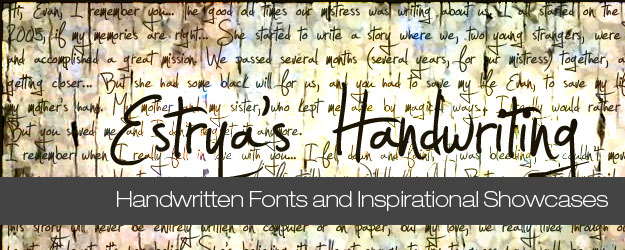
Should Handwritten Fonts be used in web design? For quite some time companies and governments have been working hard to make daily life things available as digital services in whatever way possible to speed processes up and cut costs.
At the same time most communication takes place on digital channels by sending emails, chatting, electronic orders, paying online, doing banking online…well almost anything goes on the line today.
Sending a good old snail mail letter is still possible but not that popular really. Even on vacations we are not offline and stick to digital channels, keep the blog updated with “near real time images and stories. Just ask yourself – when is the last time you send or received a postcard, a letter…?
This is because of we have netbooks and hand-held gadgets going with us anywhere and most hotels, restaurants, public places, people we visit etc. have internet (or if not we can just sneak online using bluetooth and our mobile phone if it is not already integrated into the netbook…).
The advantages that computers give us is obvious but the complete turnaround that have happened over just a few years makes real life stuff like fx. hand written text catch most peoples attention (even though it is presented on a computer screen).
Hand writing is something we all know very well and have been working hard to learn in school, it may bring up emotions, memories, images that a plain verdana or times roman can’t compete with.
While handwritten fonts may be very useful to achieve certain design goals they are not to be applied in any case. Long text and difficult to read text are examples where hand written fonts may be painful for the reader. For headers and short notes hand written fonts may be very useful.
First some inspiration on how Handwritten Fonts can be used
One use of Handwritten Fonts that we see used quite often is a vision or mission statement below a company logo. It makes it look like someone just personally added it and that it is true.
Another really great way to use this effect isto make people think that fx. a discount is really a discount and that someone just changed the price by hand and added some notes. We all know this is not what happend but it affects us somehow anyway.
Taking it further handwriting can be used very in a very simplistic way to give an impression of things happening – kind of the effect we all know from comics that we spends hours and hours on reading as kids.
Also handwritten fonts can effectively be used in a feature box to deliver a “soft introduction” to a product. If all other text elements on the page use traditional fonts this part stands out. Using colours as well increase the effect.
Really there are no limitations on how to use handwritten fonts. I personally wont encourage too heavy use of handwritten fonts but it is up to you to decide!
Handwritten Fonts
Thurston the Font
The Quiet Scream
Grutch Shaded
Kraboudja
Tiza
Sketch Rockwell
This font is very good to be used, with a big size, for titles and headers.
Urban Sketch, Regular
Rough Draft, Regular
Scrubble, Regular
WC Roughtrad Bta
HandVetica, Bold
karabinE., Regular
Jump Start, Regular
FatStack BB, Regular
!Sketchy Times, Bold
Cup and Talon, Regular
Caityln
Alliewriting
clementine sketch, Regular
bearerFond, Regular
Umberette, Regular
blackout serif, Regular
GoodDog
WC Mano Negra Bta
Katy Berry
Jellyka Endless Voyage
Analgesics
Analgesics is a “bold” font particular useful to design heder elements.
aaaiight
Almagro Regular
Brook 23
Harrison
House Whiteboard
Joe Hand 2
This handwritten font is good for small size typography.
Rickles, Medium
Fabulous 50s, Normal
Rai Elegant
Redstar, Regular
imitation
JohnLennon, Regular
Glider Girls, Regular
Note this
Milktop Girl, Regular
Jessica, Regular
Pisan
Rabiohead
Hand of Sean
Jellyka – Estrya’s Handwriting
Keisadiya
NOxWAY
Jellyka Castle’s Queen
Philippe, Regular
Sophie, Regular
Hannahs Messy Handwriting
Christopher Hand
Daniel
Chemist
Windsong, Regular